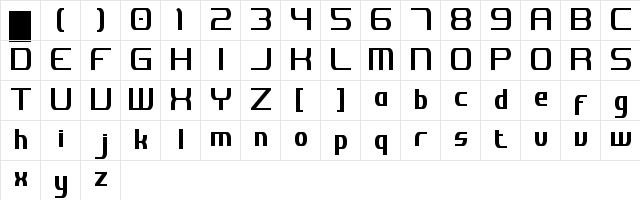
JH_Digital Nominal
Design Context for JH_Digital Typeface
JH_Digital has a distinctly futuristic character, with geometric precision and clean angles that feel at home in technology, gaming, and sci-fi contexts.
Pro Tip: Use JH_Digital in combination with a neutral sans for body text. Let it define the brand voice in headlines while keeping reading comfortable elsewhere.